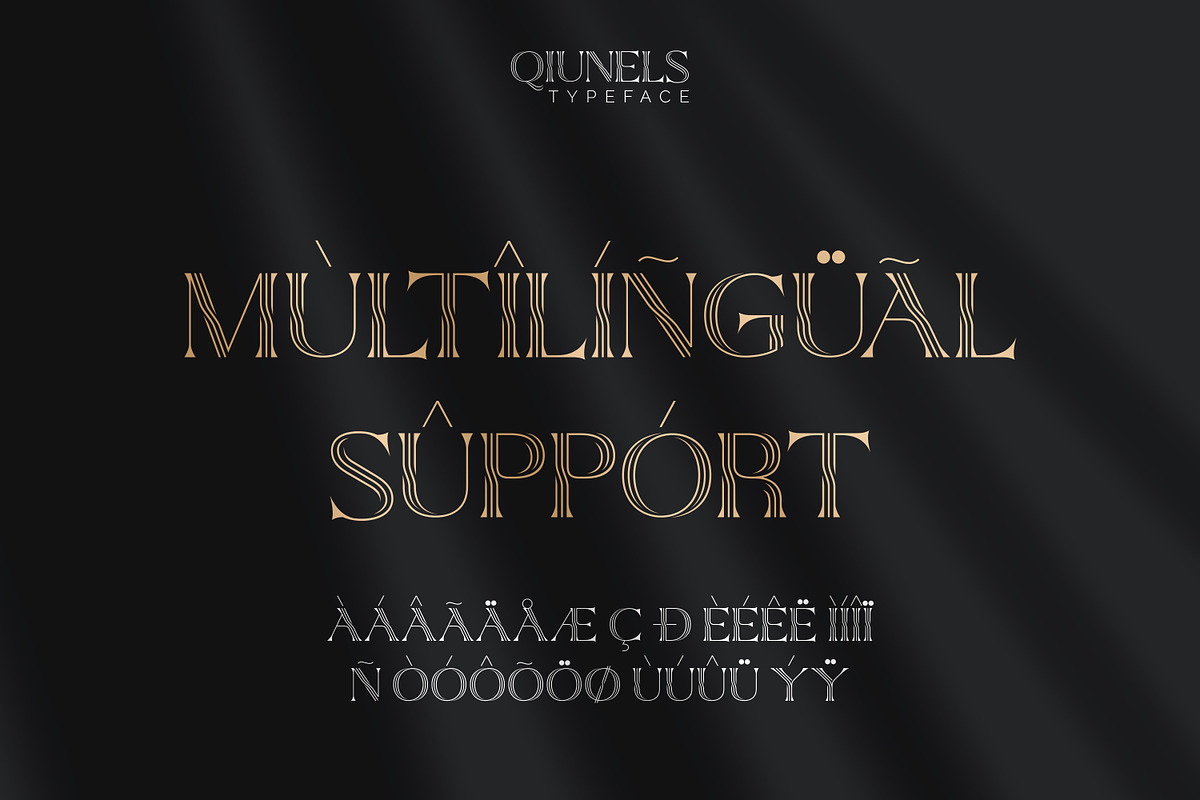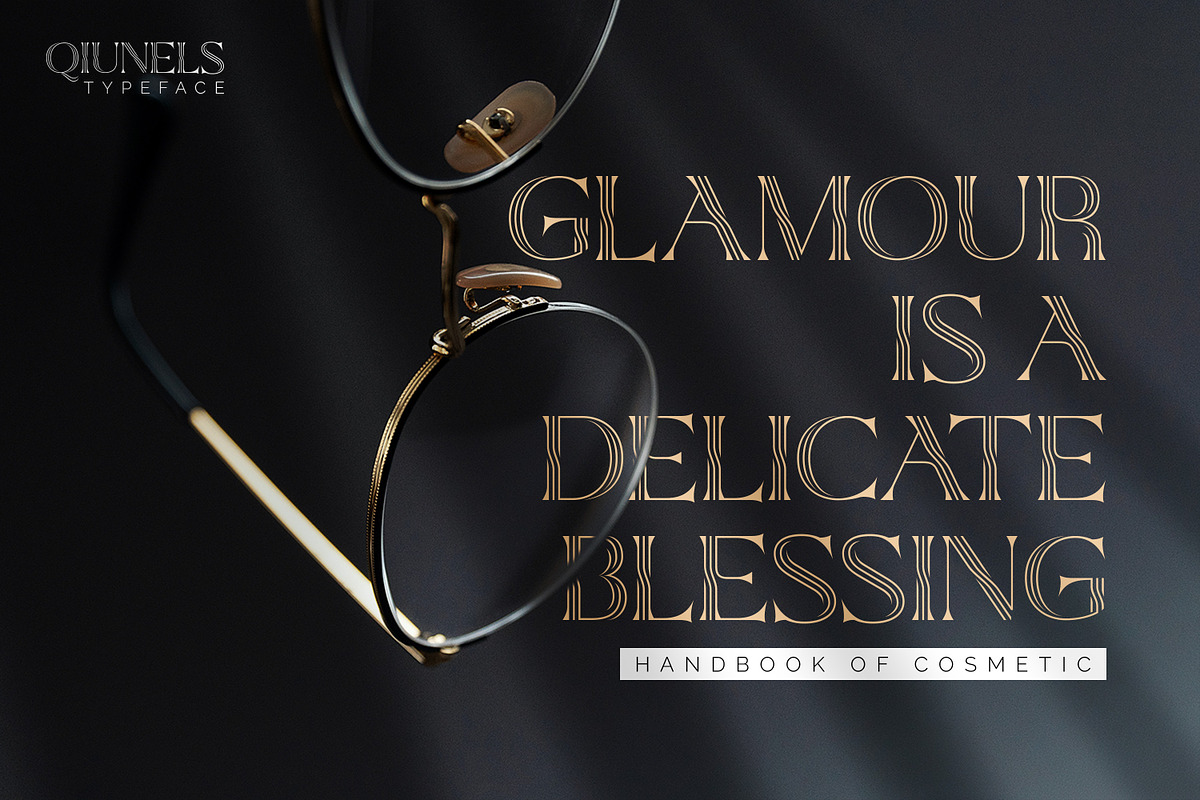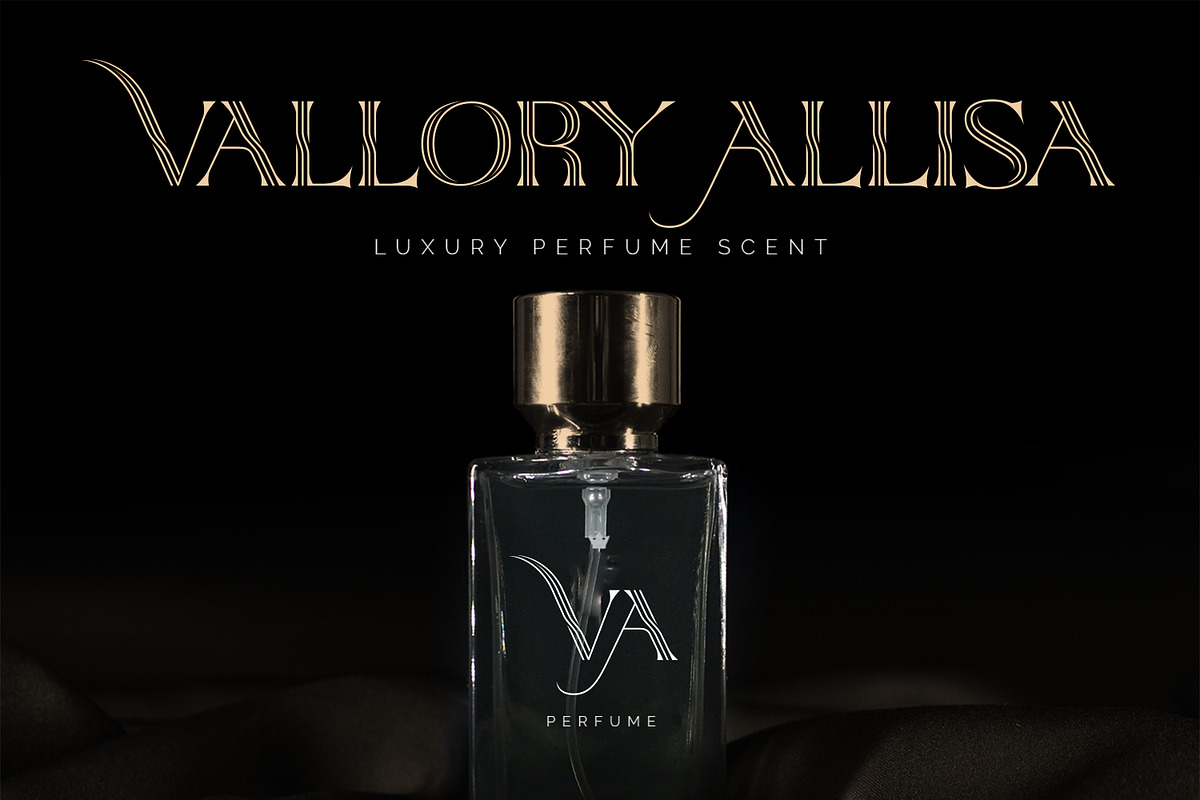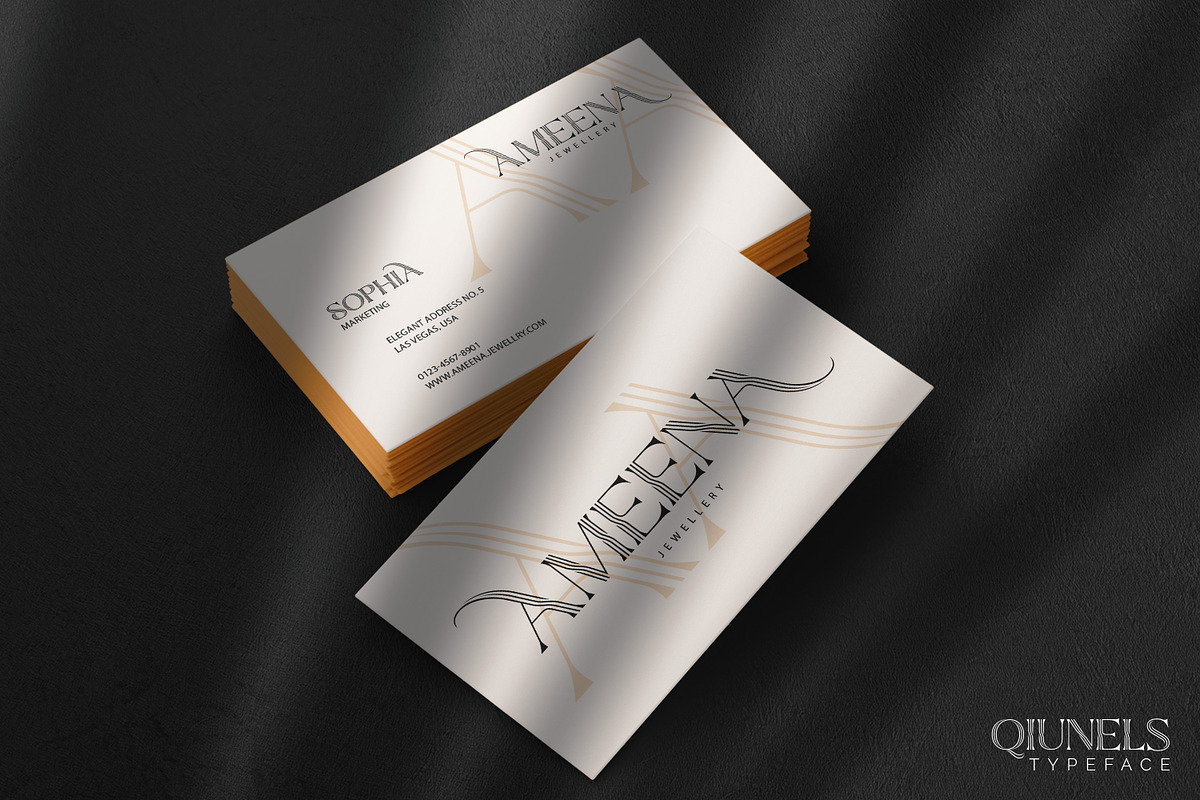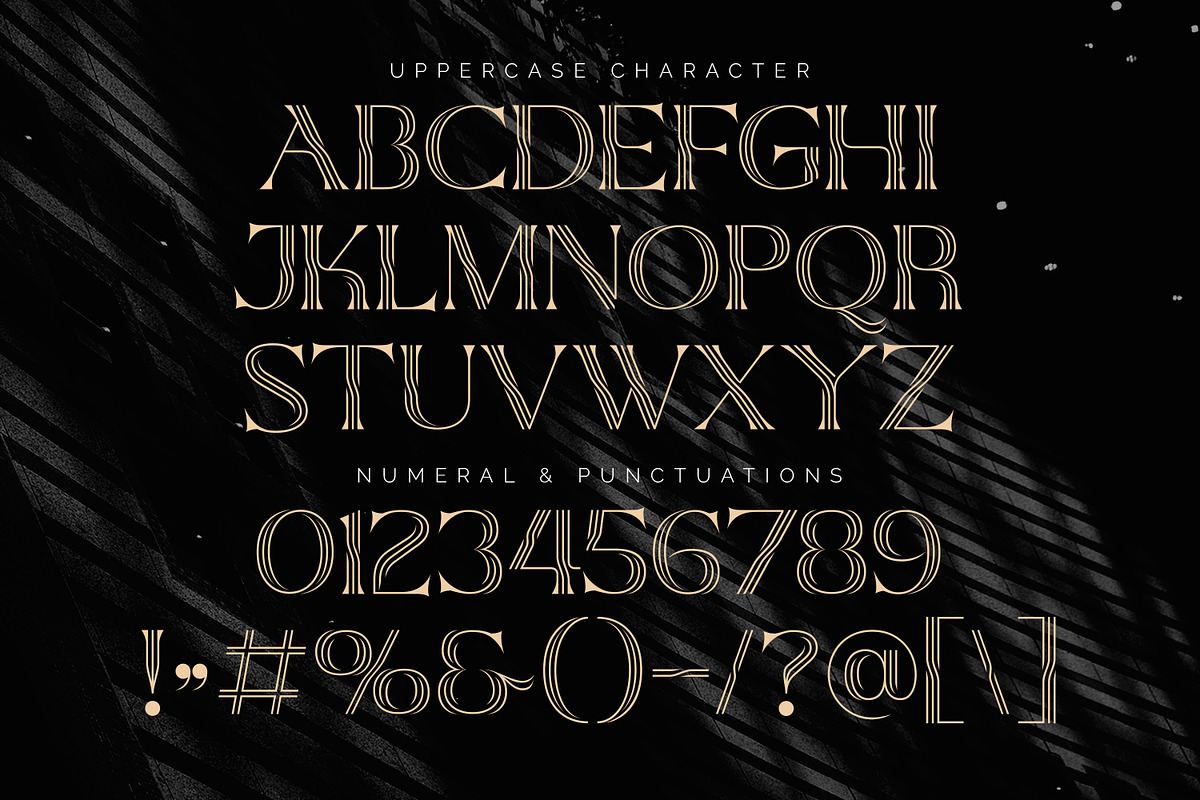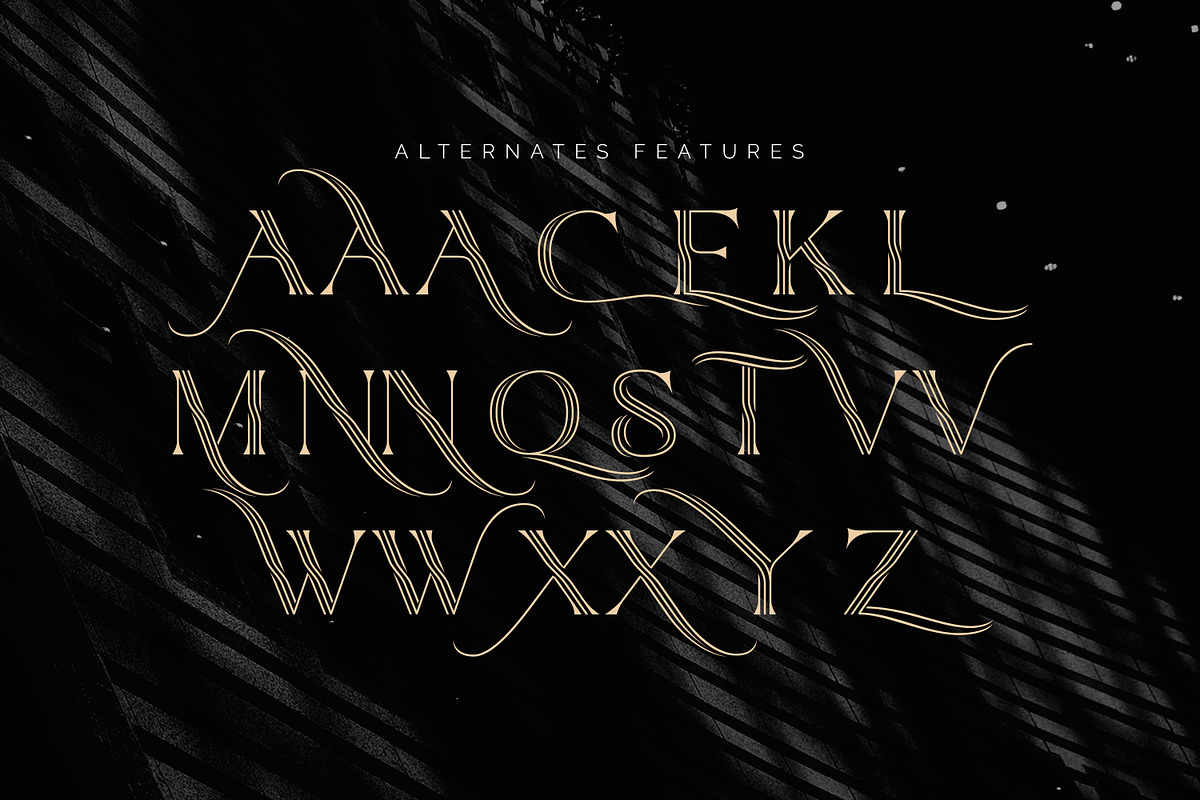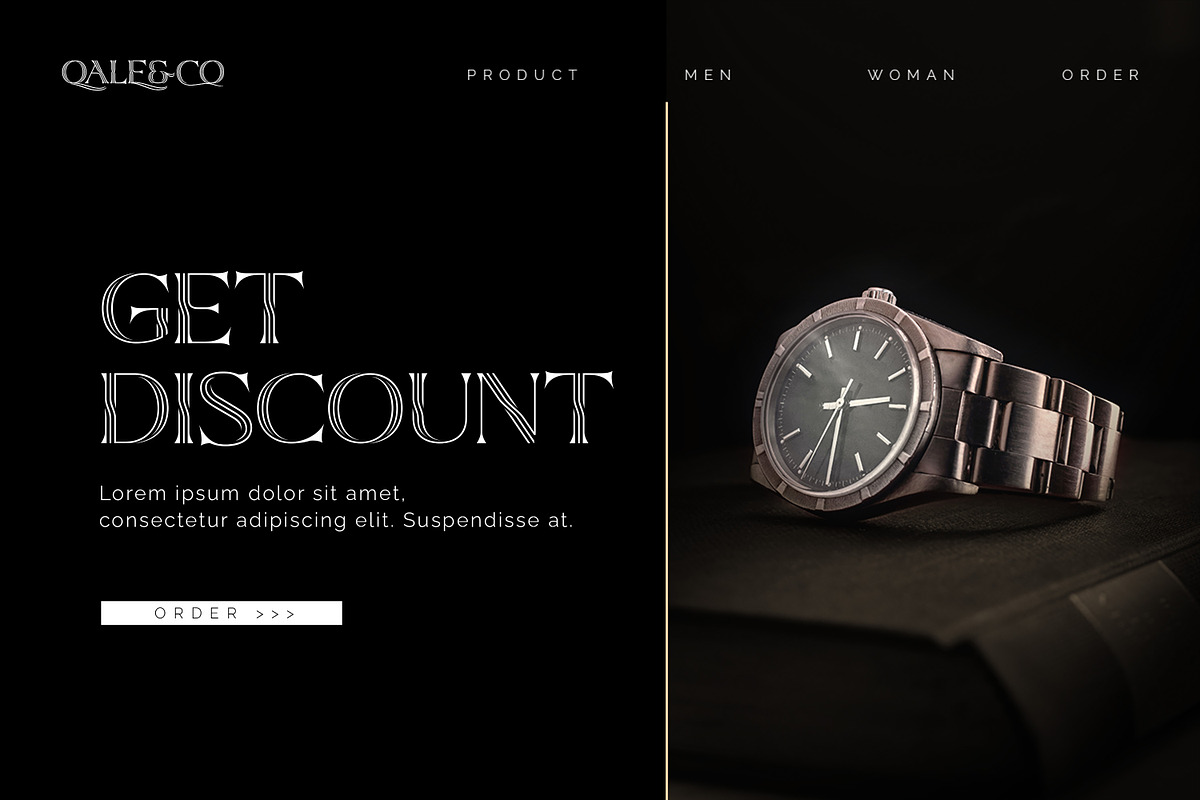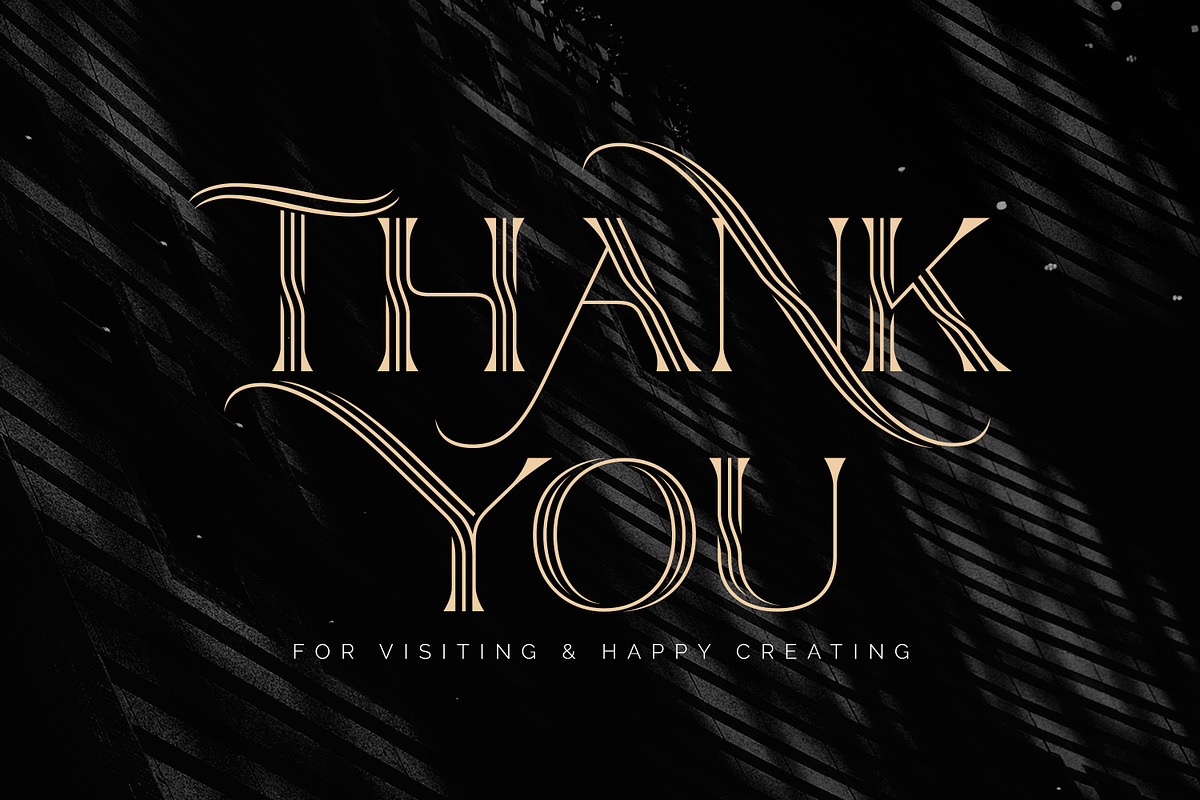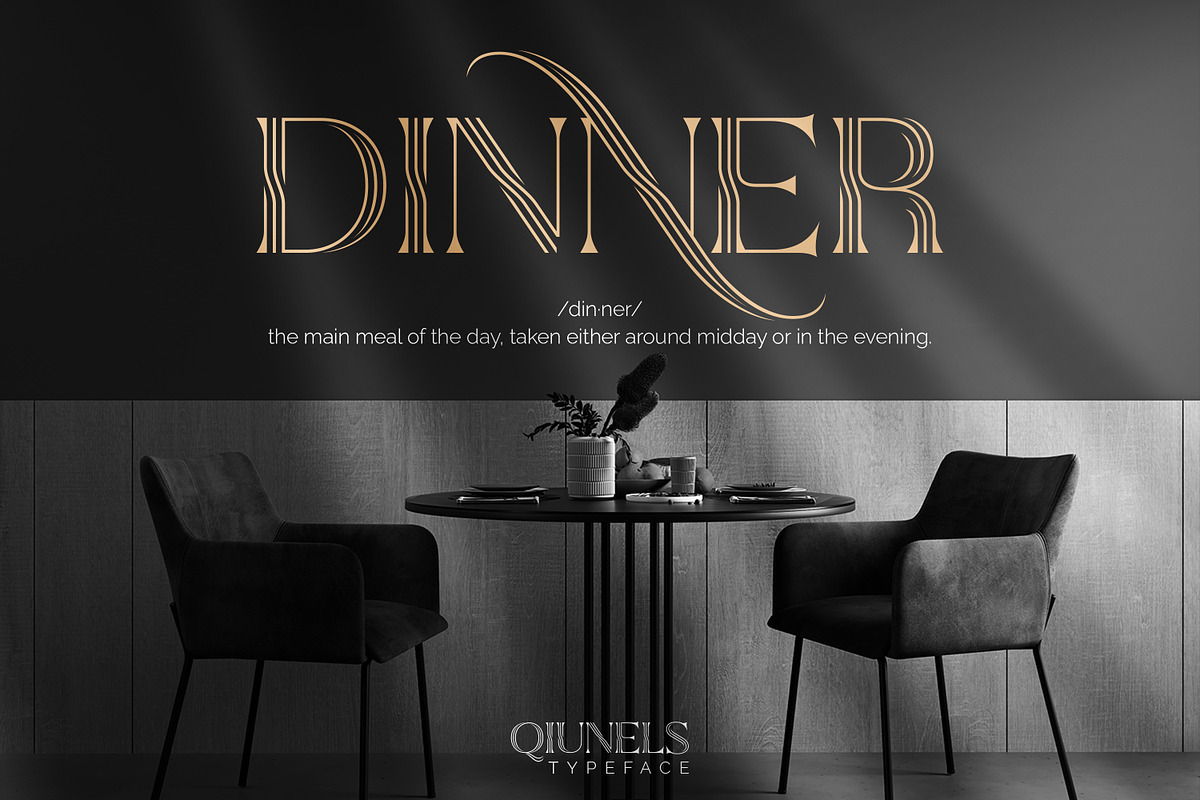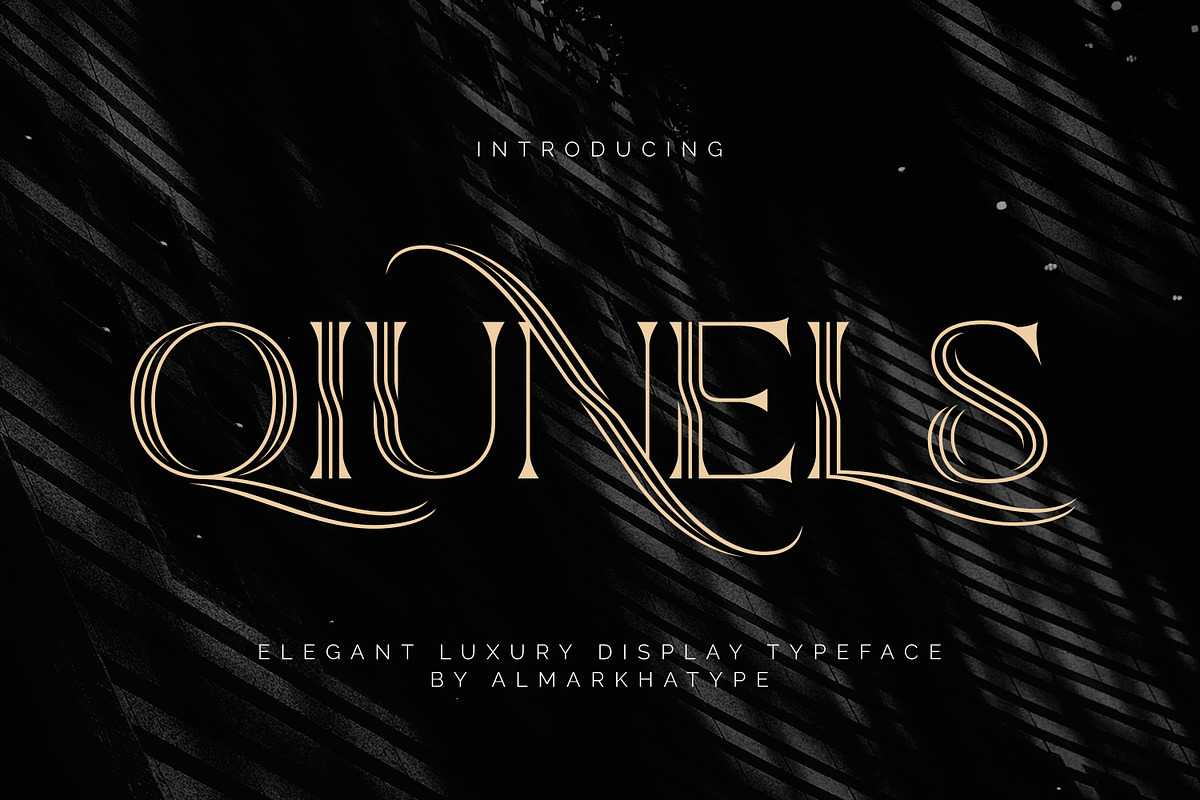
Qiunels - Elegant Luxury Serif
Hello Introducing, Qiunels - Elegant Luxury Display Serif is an unique font that uses line to describe the impression of elegance and modern. Perfect for adding a unique twist to word-mark logos, monograms or pull quotes. Qiunels has 21 Alternate can be turned off if required standard writing needs. What's Included :
- Alternate glyphs